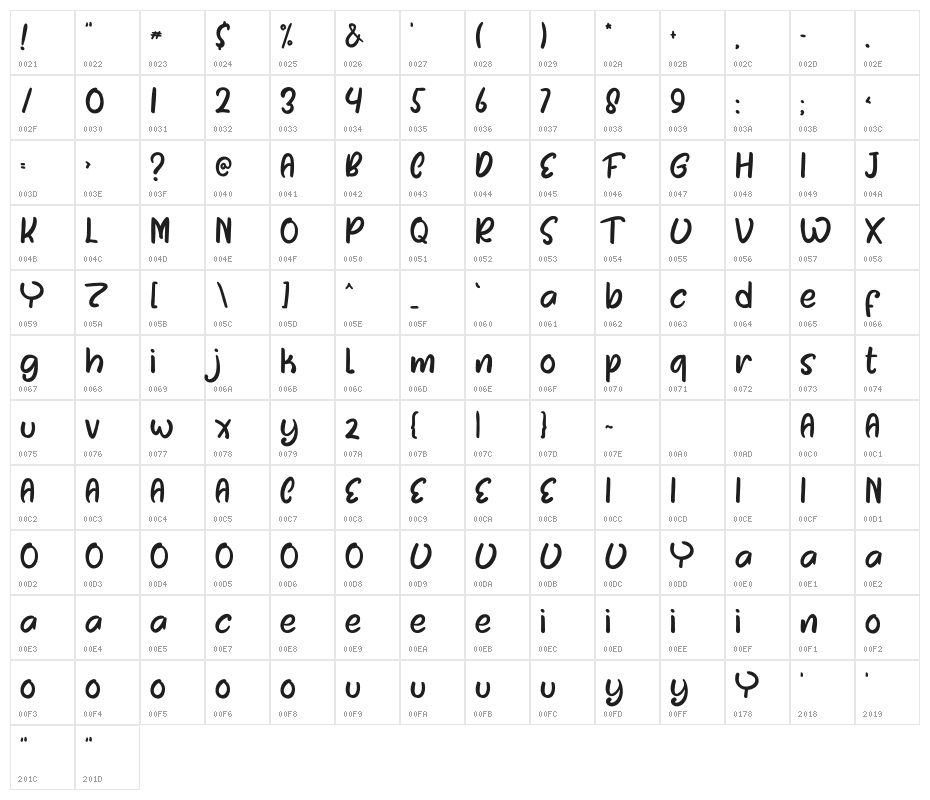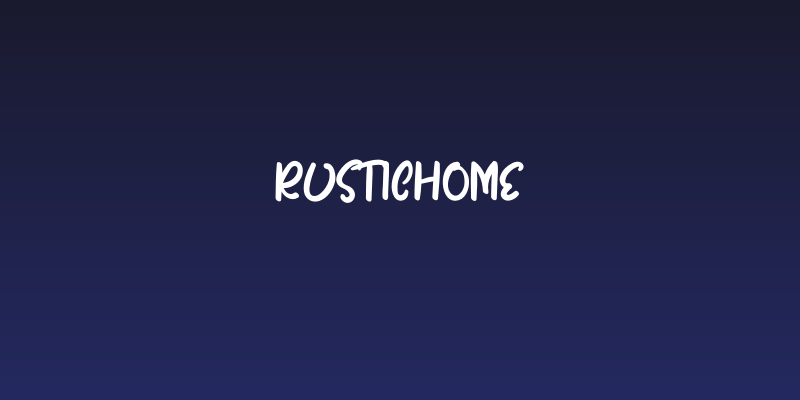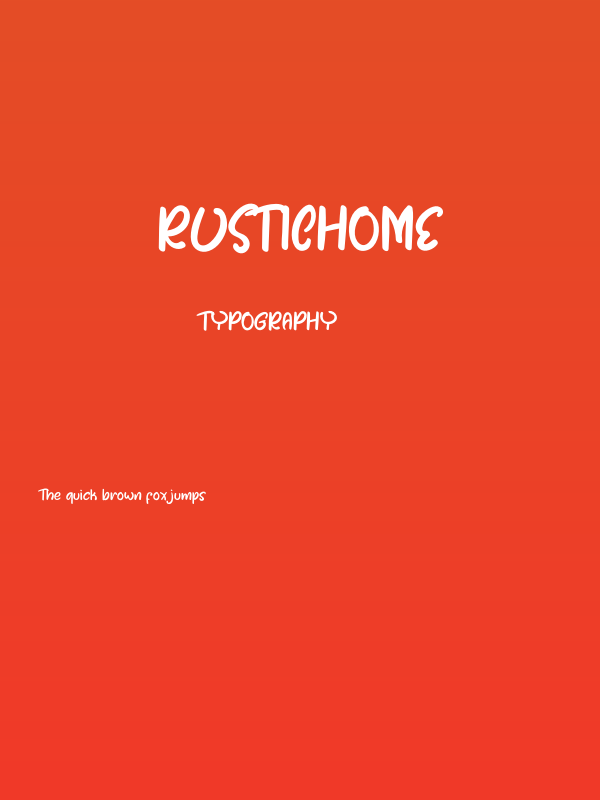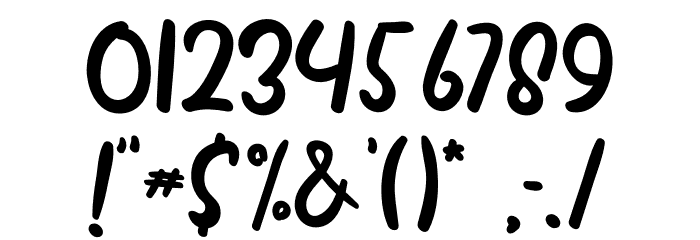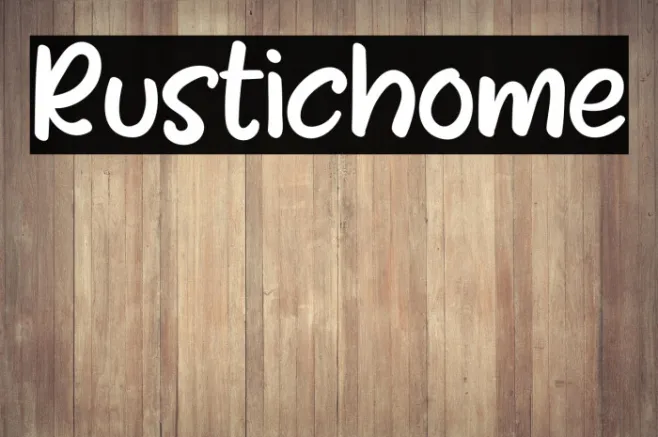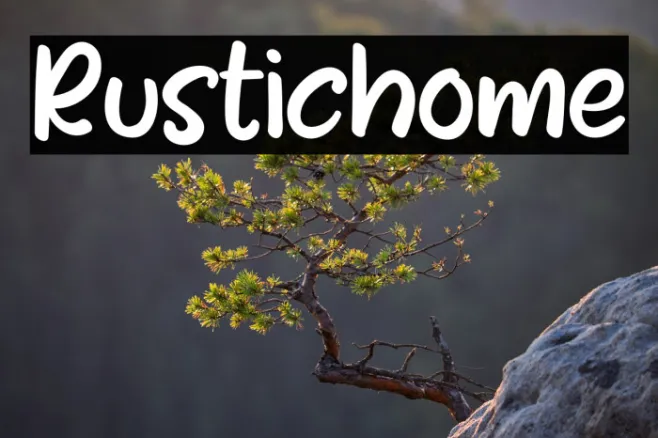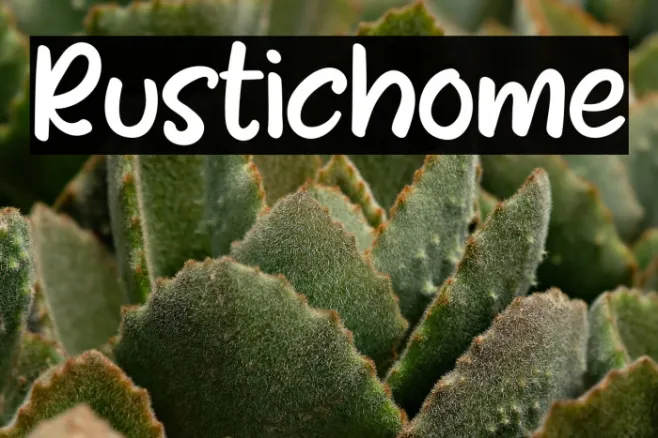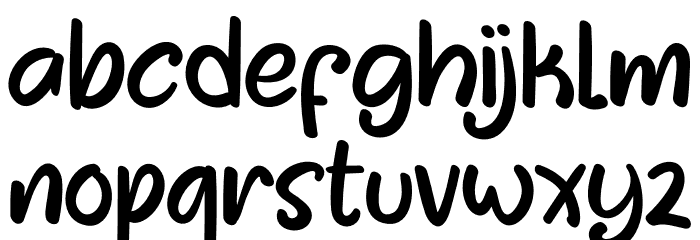
Rustichome Font
Rustichome Description
This font features a playful and bold handwritten style, characterized by its rounded and slightly irregular letterforms. The strokes are thick and consistent, giving it a strong presence on the page. The uppercase and lowercase letters maintain a cohesive look, with a casual and friendly vibe. The numerals and special characters follow the same design, ensuring uniformity across all text elements. Its informal and approachable appearance makes it suitable for creative and fun projects.
| Proposed Projects | Ideal for greeting cards, children's books, playful branding, and social media graphics. |